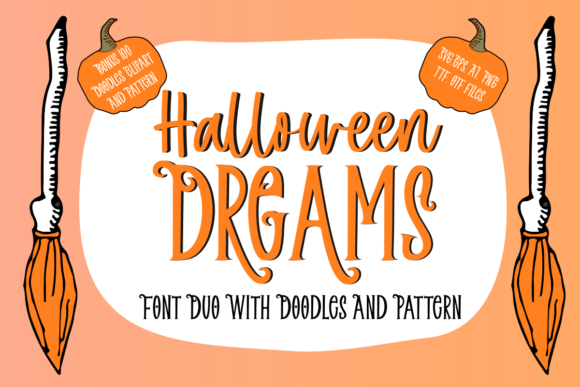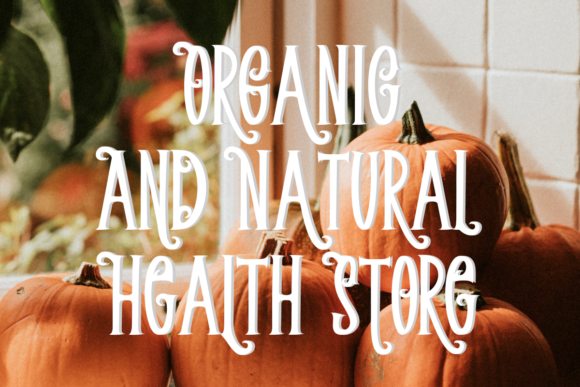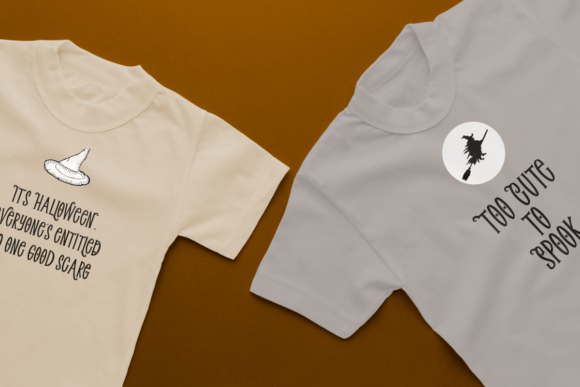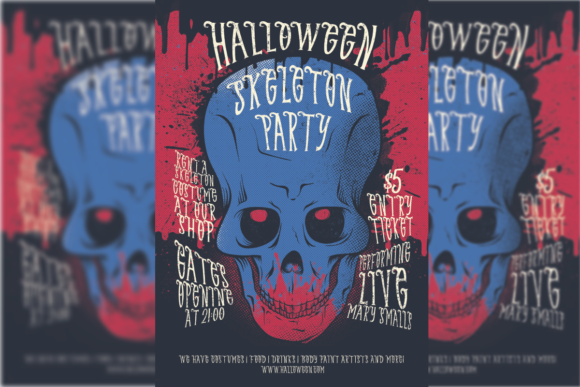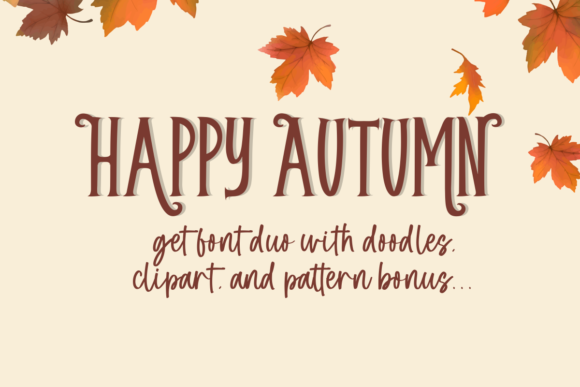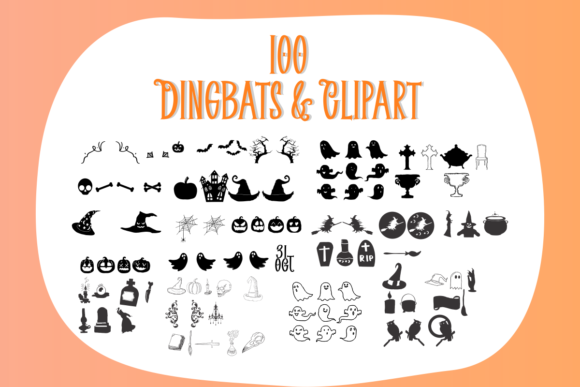
Spooky Season Just Got a Whole Lot Sweeter
As the sun sets on a crisp autumn evening, you find yourself lost in a sea of colorful leaves and twinkling lights, dreaming of the perfect craft project. The excitement of Halloween is in the air, and you can’t help but feel the urge to create something magical. And that’s where the enchanting Halloween Dreams Font comes in – a delightful trio of fonts (display, script, dingbats) that will transport your designs to a world of wonder and whimsy.
With the Halloween Dreams Font, you’ll have endless possibilities to add a touch of elegance and playfulness to your crafts. Whether you’re creating spooky invitations, festive decorations, or sweet treats, this font is the perfect companion. Its PUA encoding ensures that you can access all the glyphs and swashes with ease, making it a valuable tool for designers looking to add a personal touch to their work.
Halloween Dreams Font Key Features
- Font Family: Halloween Dreams, a unique and spooky font designed for Halloween and horror-themed projects.
- Unique Characteristics: Features a mix of creepy and playful elements, with intricate details and bold lines that evoke a sense of Halloween spirit.
Halloween Dreams Font Review
I recently had the chance to work with the Halloween Dreams Font, and I must say, it’s a mixed bag. ✨ Here are some things that work well:
- It’s perfect for creating spooky and eerie designs, especially around Halloween or for Gothic-inspired projects.
- The font has a wide range of styles and weights, giving you plenty of options for customization.
- The font is well-suited for titles and headings, adding a touch of sophistication to any design.
- The font may be too ornate for some designs, potentially overwhelming the overall aesthetic.
- The font’s spacing can be a bit inconsistent, which may require some manual adjustments to achieve the desired look.
- The font may not be suitable for body text, as it can be difficult to read in smaller sizes.
Overall, I think the Halloween Dreams Font is a great choice for designers who want to add a touch of whimsy and spookiness to their projects. While it may not be perfect for every design, it’s definitely worth considering for the right project. Just be sure to use it judiciously and with a critical eye to avoid overwhelming the design.
The Halloween Dreams font is perfect for creating spooky and eerie designs, especially for Halloween-themed projects.
Some common use cases include:
- Halloween party invitations
- Spooky social media graphics
- Horror movie posters
- Creepy greeting cards